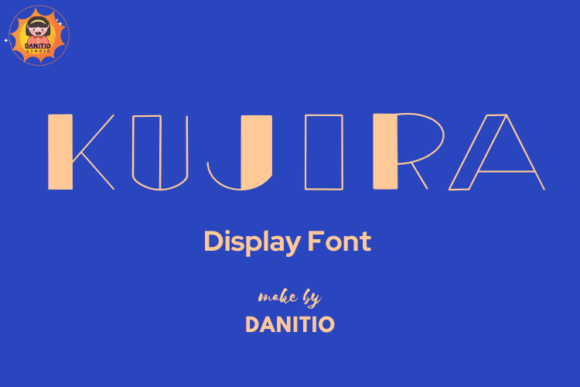
Welcome to the enchanting realm of Kujira Font, where imagination and creativity dance together, enchanting the world with a symphony of playful strokes. This extraordinary font family, crafted by the visionary artist danita.kukkai, stands as a testament to the transformative power of creativity and its ability to capture hearts and minds.
Kujira, meaning "whale" in Japanese, embodies the essence of boundless imagination and dreams that soar high like whales dancing gracefully in the vast ocean. As a Display font, Kujira possesses an innate ability to captivate and allure, making it the perfect choice for projects that demand a touch of magic and whimsy. Whether you're an artist seeking to breathe life into your creations, a designer yearning to leave an indelible mark, or a storyteller weaving enchanting tales, Kujira Font, with its inherent charm, promises to elevate your vision and transport you to a world where creativity knows no bounds.
With its playful curves and organic flow, Kujira Font dances across the screen, evoking a sense of wonder and delight. Its natural and fun personality shines through every stroke, adding a touch of enchantment to logos, t-shirt designs, creative products, and anything that longs for a sprinkle of magic. Imagine your brand identity taking flight, carried by the graceful wings of Kujira, soaring through the hearts and minds of your audience, leaving an unforgettable impression that whispers of your unique charm and creativity.
Kujira Font possesses a remarkable adaptability, seamlessly adapting to a diverse range of projects and themes. Its versatility knows no limits, making it a true chameleon of the font world. From the whimsical world of children's books, where it paints stories with hues of joy and laughter, to the vibrant energy of posters and flyers, where it electrifies messages with its dynamic spirit, Kujira Font is a versatile masterpiece that transforms your creative endeavors into captivating works of art.
Embrace the boundless creativity of Kujira Font and watch as your artistic vision takes flight. Its captivating charm will leave an indelible mark, enchanting your audience with its playful spirit and enchanting allure. Let Kujira Font be the brush that paints your dreams, the melody that orchestrates your storytelling, and the magic that transforms your creations into timeless masterpieces. Dive into the world of Kujira Font and unleash the limitless possibilities that await your creative spirit.